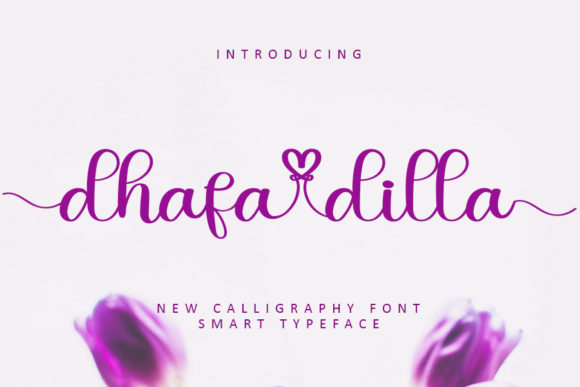
About Dhafa Dilla Font
Dhafa Dilla is a romantic and sweet calligraphy typeface with characters that dance along the baseline. It will add a luxury spark to any design project that you wish to create! This font is PUA encoded which means you can access all of the amazing glyphs and ligatures with ease!